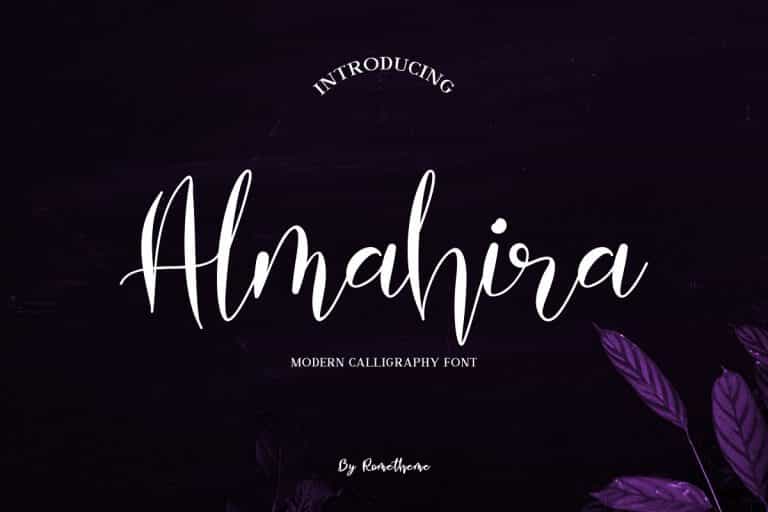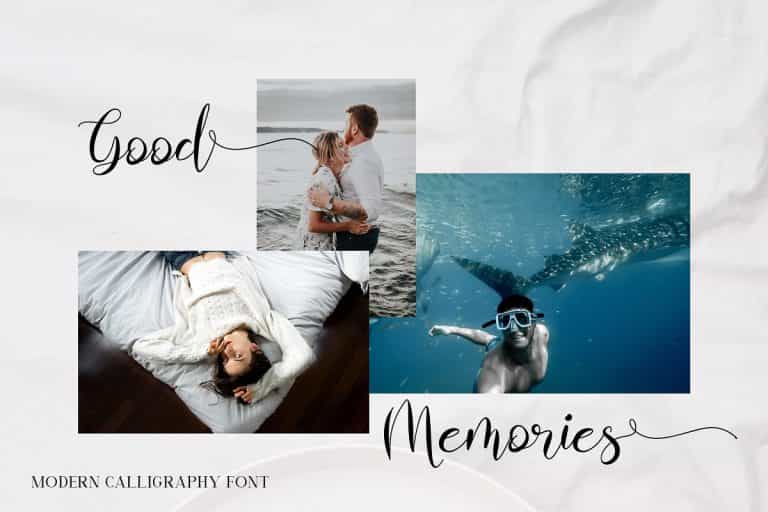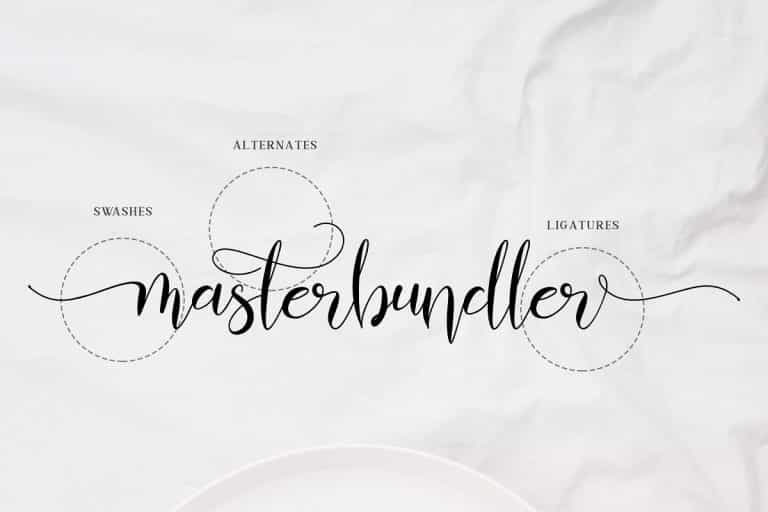
Introducing Almahira Font. It was created by Rometheme. Almahira Script Font is a contemporary calligraphy typeface which is elegant and luxurious. This font is attractive and lovely, it is also versatile so you can use in a lot of designs both online and offline.